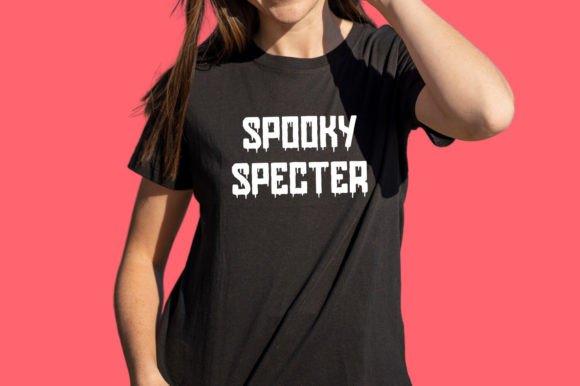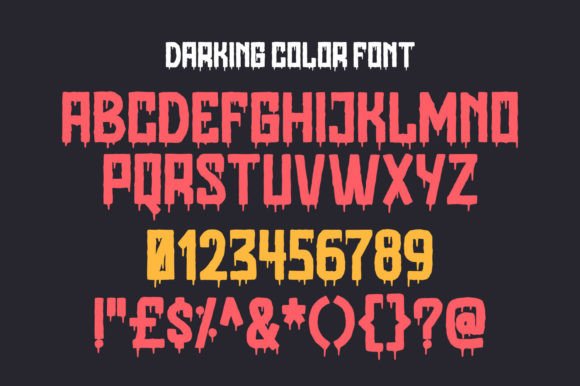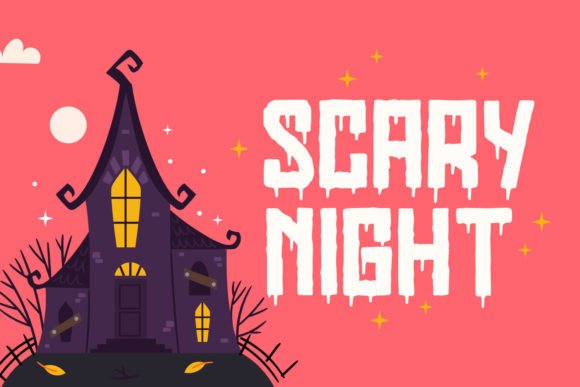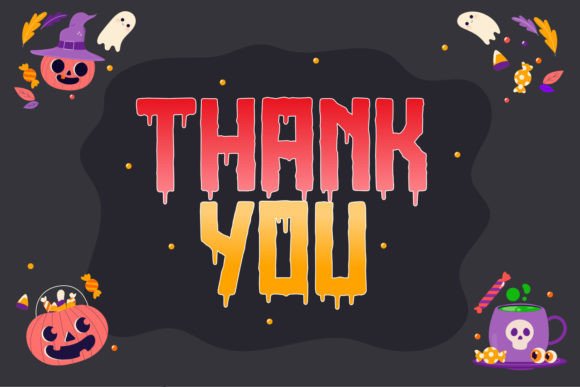
Unleash the Spooky Whimsy with Darking Colors Font
Are you ready to add a dash of playful eeriness to your designs? Look no further than the Darking Colors Font, a bold and quirky typeface that’s perfect for Halloween-themed projects. This distinctive font is designed to evoke the delightful whimsy of the spookiest season, making it an ideal choice for designers and crafters looking to create eye-catching posters, flyers, and merchandise.
The Inspiration Behind Darking Colors Font
Darking Colors Font takes its inspiration from the uniquely uneven carved pumpkins that are a staple of Halloween decorations. The font’s creator aimed to capture the playful, hand-carved essence of these gourds, infusing each letter with a quirky twist that’s sure to put a smile on your face. The result is a typeface that’s equal parts spooky and charming, with a festive zest that’s perfect for the Halloween season.
What Makes Darking Colors Font So Special?
So, what sets Darking Colors Font apart from other typefaces? Here are just a few features that make it a standout choice for designers and crafters:
- Bold and playful: Darking Colors Font is designed to make a statement, with bold, chunky letters that are perfect for grabbing attention.
- Quirky and whimsical: Each letter in the font has a unique, hand-carved feel that’s sure to add a touch of whimsy to your designs.
- Festive and fun: Darking Colors Font is infused with a playful, festive vibe that’s perfect for Halloween-themed projects.
- Versatile: Whether you’re creating posters, flyers, or merchandise, Darking Colors Font is a versatile choice that can be used in a variety of design applications.
Perfect for Halloween-Themed Projects
Darking Colors Font is the perfect choice for any Halloween-themed project, from spooky party posters to child-centric event flyers. Here are just a few ideas for using this font in your designs:
- Halloween party posters: Create eye-catching posters that will draw in trick-or-treaters and partygoers alike.
- Child-centric event flyers: Add a playful touch to your flyers with Darking Colors Font, perfect for kids’ Halloween parties and events.
- Themed merchandise: Use Darking Colors Font to create spooky-ooky merchandise, such as t-shirts, stickers, and other treats.
Tips for Using Darking Colors Font
Here are a few tips for getting the most out of Darking Colors Font:
- Experiment with colors: Darking Colors Font looks great in bold, bright colors, so don’t be afraid to get creative with your color palette.
- Add some texture: Consider adding some texture to your design, such as a spooky background or some creepy graphics.
- Mix and match: Don’t be afraid to mix and match Darking Colors Font with other fonts and design elements to create a unique look.
Darking Colors Font is a unique and versatile typeface that’s perfect for adding a touch of spooky whimsy to your designs. With its bold, playful letters and quirky, hand-carved feel, this font is sure to be a hit with designers and crafters looking to create eye-catching Halloween-themed projects. So why wait? Download Darking Colors Font today and start creating your own spooky-ooky designs!
Get Ready to Cast a Spell with Darking Colors Font
Whether you’re a designer, crafter, or simply a Halloween enthusiast, Darking Colors Font is the perfect tool for unleashing your creativity and adding a touch of spooky magic to your projects. So go ahead, get creative, and make every day feel like an enchanting Halloween festival!